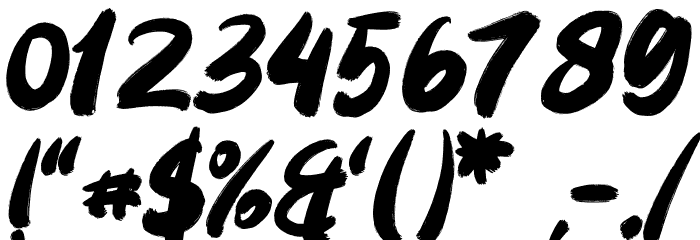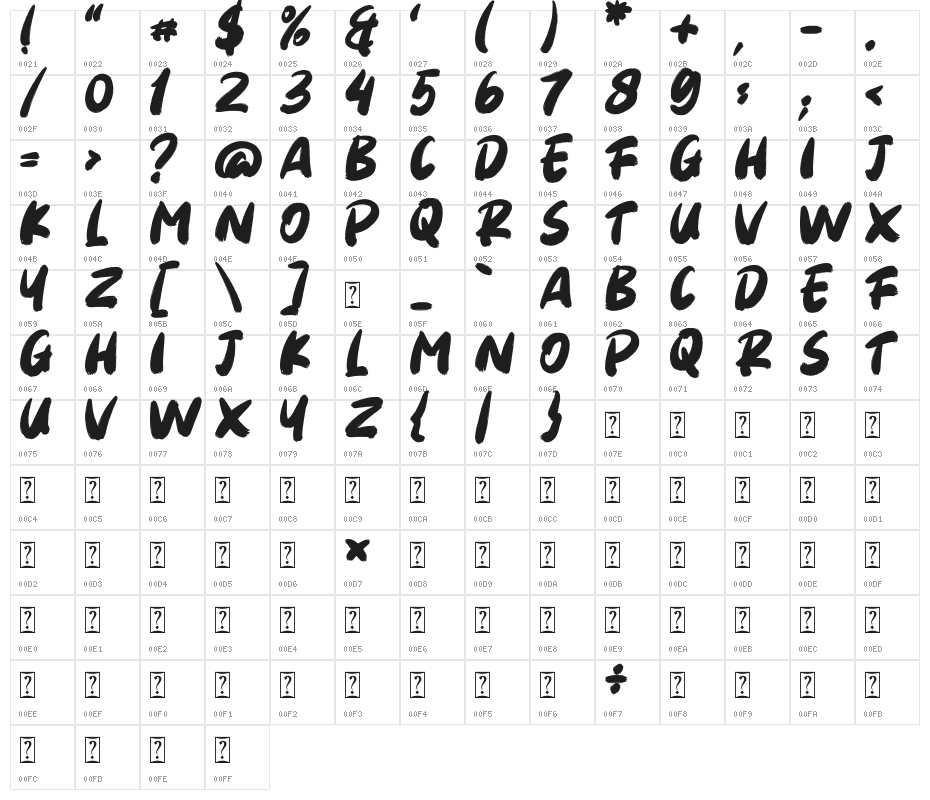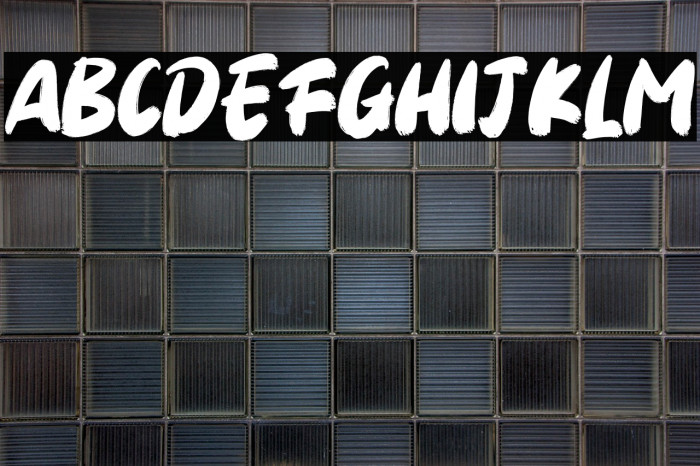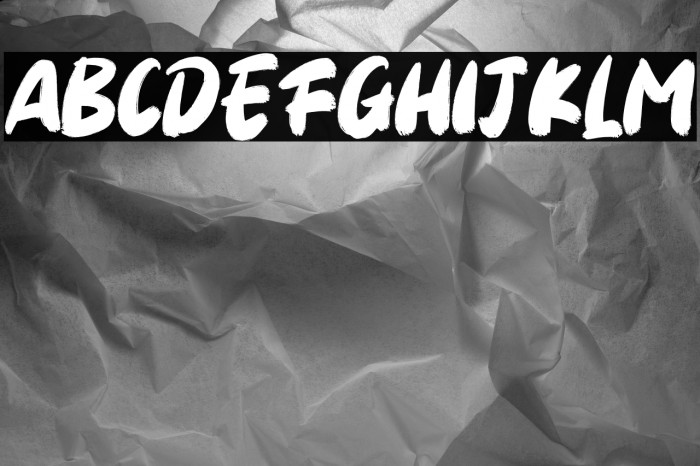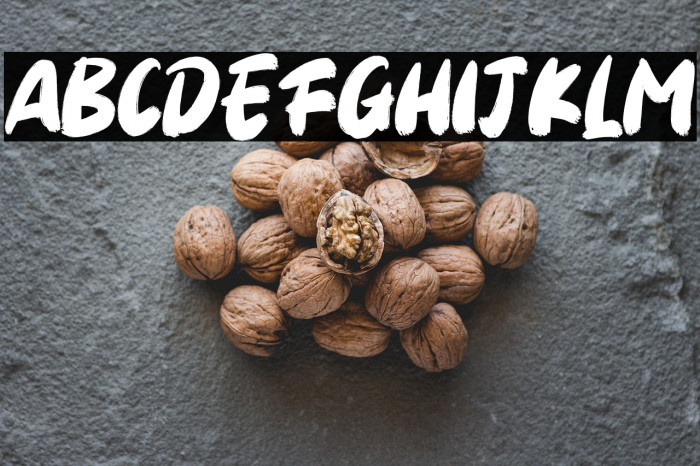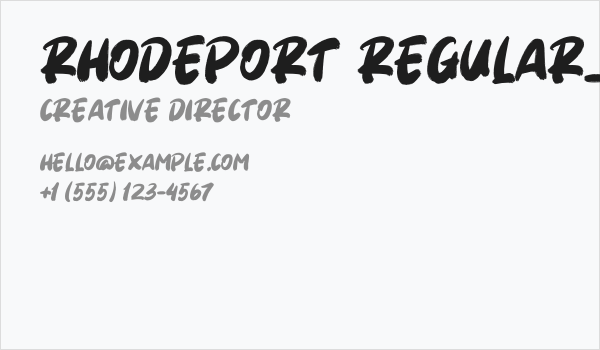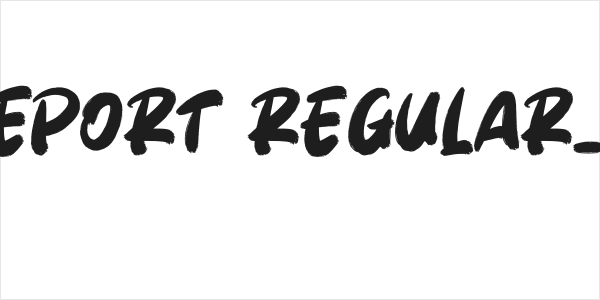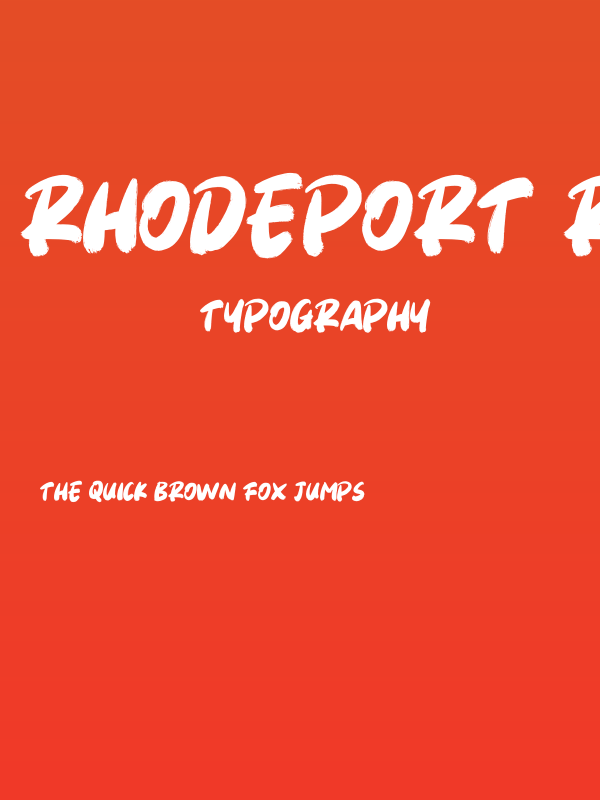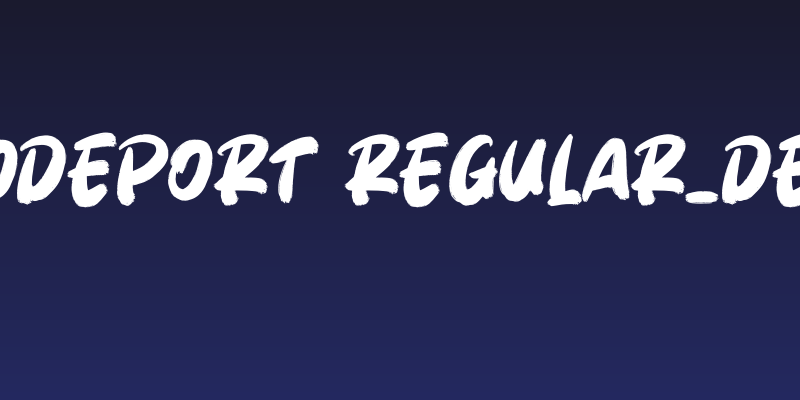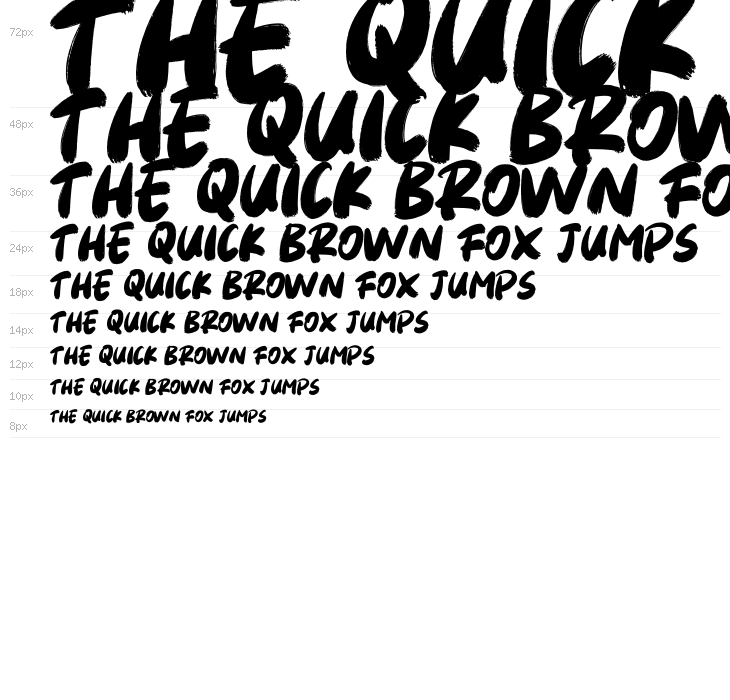
Rhodeport Regular_DEMO Font
Rhodeport Regular_DEMO Description
This font features a bold and expressive handwritten style, characterized by thick, dynamic strokes that convey a sense of energy and movement. The letters are slightly slanted, adding to the casual and informal feel. The uppercase and lowercase characters maintain a consistent style, with rounded edges and a brush-like texture that gives a personal touch. The numerals and special characters follow the same aesthetic, ensuring a cohesive look across all elements. This font is ideal for projects that require a lively and engaging appearance.